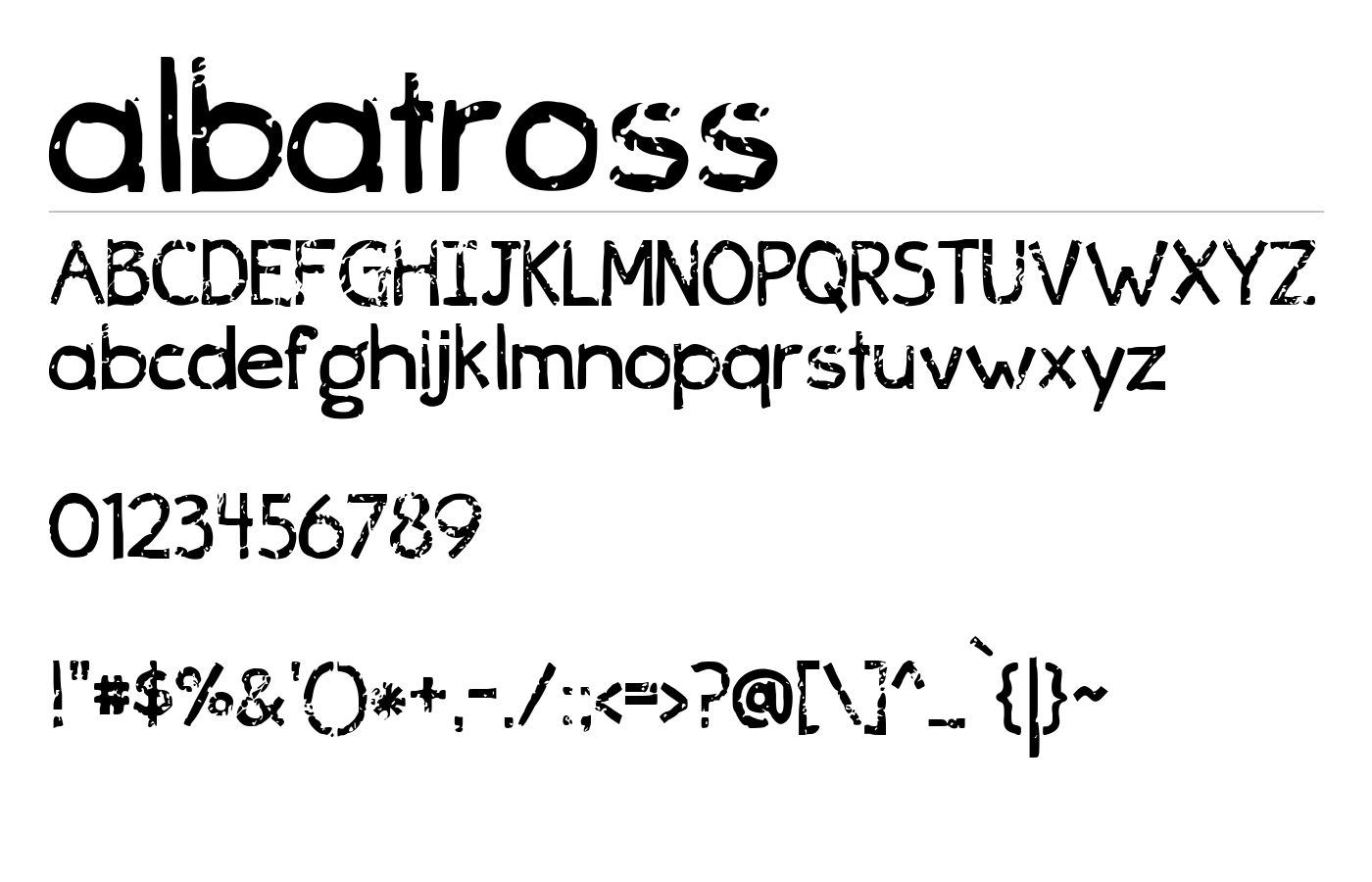
Albatross is a quirky sans serif font with a distressed, textured appearance that gives it a handmade, slightly rough feel. Its medium weight and normal width, combined with irregular edges and playful imperfections, make it ideal for creative, casual designs that want to convey personality and uniqueness. This font works great for posters, branding, and artistic projects seeking an informal, eye-catching style.
albatross Font
About albatross Font
| Font family | albatross Font |
| Designer | Brittney Murphy |